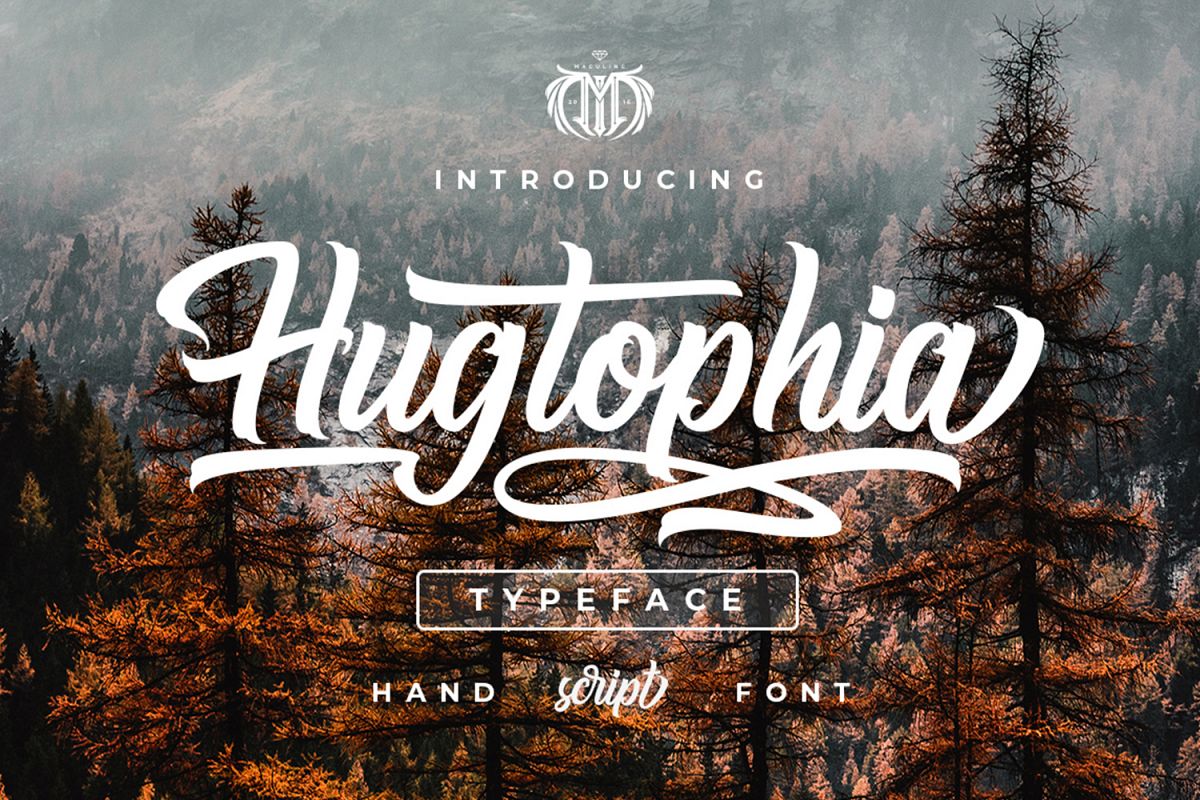
Hugtophia
Hugtophia Swash
Hugtophia
Hugtophia is a simple typography and easy to read so comfortable to wear. You can use them as logos, badges, packaging, headlines, posters, t-shirts /clothing, greeting cards, business cards, and wedding invitations and more. The flowing character is ideal for creating interesting messages to your taste.
Mix and match a group of alternate characters to fit your project. It will be more interesting if you add swash.
Alternate characters in this font are divided into several OpenType features such as Stylistic Alternate, Ligature and Ligature Alternates.